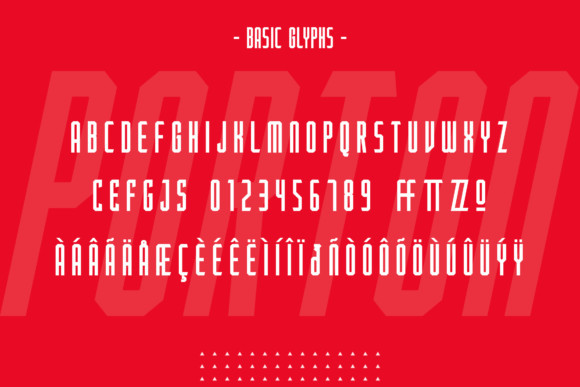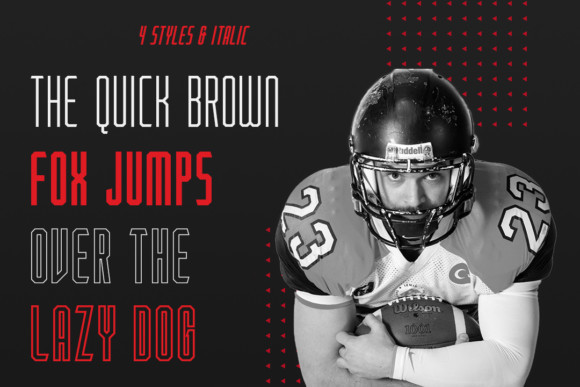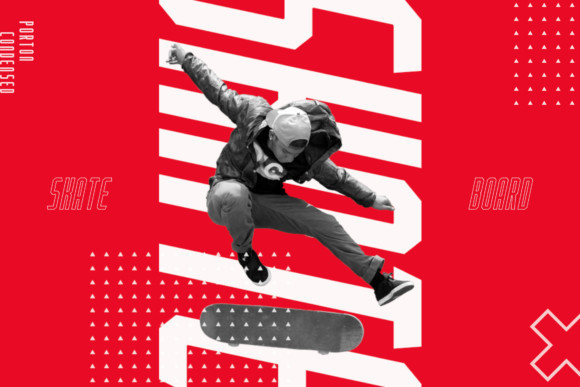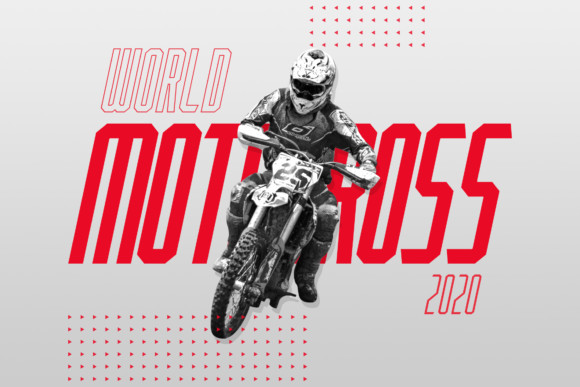
PORTON Display Font
PORTON Display Font is a condensed display typeface by fadielm70. This is contemporary high contrast display sans serif inspired by the beauty and elegance of modern style typefaces. PORTON Font is a condensed display font that is made for various purposes. It features an incredibly clean, straight and strong display font with a unique look. Perfect font for all kinds of logos and branding projects.